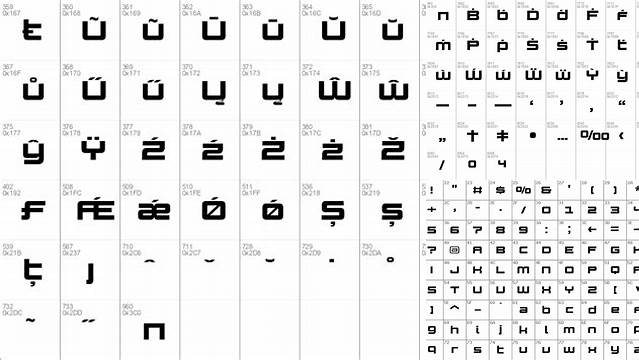
What is the Design System C 900 Font?
First things first, let's understand what the Design System C 900 font actually is. This typeface is a modern, versatile, and highly legible font that has gained popularity among designers for its clean lines and contemporary feel. It's often used in user interfaces (UI), websites, and branding materials because it strikes a perfect balance between functionality and aesthetics. Think of it as that reliable friend who always looks good, no matter the occasion. It belongs to the sans-serif family, which means it lacks the small decorative strokes (serifs) found in fonts like Times New Roman. This makes it appear cleaner and more modern, especially on screens.
One of the key characteristics of the Design System C 900 font is its legibility. Each character is carefully crafted to ensure it's easily readable, even at smaller sizes. This is crucial for UI design where clarity is paramount. Imagine trying to read tiny text on a mobile screen; a poorly designed font can make this a nightmare. But with C 900, the clarity is maintained, ensuring a smooth user experience. The font also boasts a wide range of weights, from thin to bold, giving you the flexibility to use it in various contexts. Need a light, airy feel? Go for a thinner weight. Want to make a bold statement? The heavier weights have you covered. This versatility makes it an excellent choice for headings, body text, and everything in between.
Furthermore, the Design System C 900 font includes a comprehensive set of glyphs, meaning it supports a wide range of characters and symbols. This is particularly important if you're working on projects that require multilingual support or specialized symbols. You won't be stuck trying to find a different font for certain characters; C 900 has got your back. Its design philosophy focuses on consistency and harmony, ensuring that all the characters work together seamlessly. This cohesion is what gives your designs a professional and polished look. Using a font that lacks consistency can make your work look disjointed and amateurish, but C 900 helps you avoid this pitfall. So, if you're looking for a font that combines modern aesthetics with practical functionality, the Design System C 900 font is definitely worth considering.
Key Features and Benefits
Let's dive deeper into the key features and benefits of using the Design System C 900 font. This isn't just about downloading a font; it's about enhancing your design toolkit with a powerful asset. Think of it as adding a Swiss Army knife to your design arsenal – it's versatile, reliable, and always ready to tackle any challenge. One of the primary benefits of this font is its readability. As we touched on earlier, the clear and well-defined characters make it incredibly easy to read, whether it's on a screen or in print. This is crucial for ensuring that your message is effectively conveyed to your audience. After all, what's the point of a beautiful design if the text is illegible?
Another major advantage is its versatility. The Design System C 900 font comes in multiple weights and styles, allowing you to use it for a wide range of applications. From bold headlines that grab attention to elegant body text that flows smoothly, this font adapts to your needs. This flexibility saves you time and effort because you don't have to hunt for different fonts for different purposes. You can maintain a consistent look and feel throughout your project, which is essential for strong branding. Imagine using a different font for every heading and paragraph – it would look chaotic and unprofessional. But with C 900, you can create a cohesive and polished design with ease. The font's modern aesthetic is another significant benefit. Its clean lines and contemporary design make it a perfect fit for modern websites, apps, and branding materials. It's a font that looks fresh and up-to-date, helping you create designs that resonate with today's audiences. In a world where trends come and go, C 900 manages to stay relevant due to its timeless appeal.
Moreover, the Design System C 900 font is designed to work seamlessly across different platforms and devices. This means your text will look great whether it's viewed on a desktop computer, a mobile phone, or a tablet. This cross-platform compatibility is vital in today's digital landscape, where users access content on a variety of devices. You don't want your design to look amazing on one device but fall apart on another. C 900 ensures that your typography remains consistent and legible, regardless of the screen size or resolution. The extensive character set is yet another perk. This font includes a wide range of glyphs, supporting multiple languages and special characters. This is particularly useful for international projects or designs that require unique symbols. You won't have to worry about finding a supplementary font to cover missing characters; C 900 has got you covered. So, if you're looking for a font that offers readability, versatility, a modern look, cross-platform compatibility, and a comprehensive character set, the Design System C 900 font is an excellent choice.
In conclusion, the Design System C 900 font is a fantastic addition to any designer's toolkit. Its readability, versatility, and modern aesthetic make it a perfect choice for a wide range of projects. Finding a Design System C 900 font free download can be a rewarding experience, but it's crucial to ensure that you're downloading from reputable sources to avoid any legal or security issues. Once you have the font installed, remember to follow our tips for using it effectively to create designs that truly stand out. Typography is a powerful tool, and with C 900, you're well-equipped to make your message shine. So go ahead, experiment, and have fun with it! Happy designing, guys!